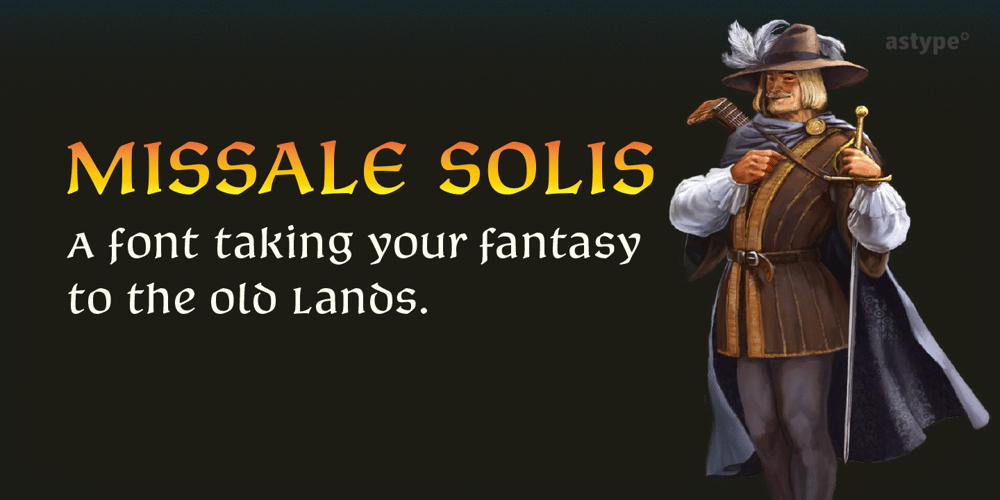
Missale Solis
Missale Solis font
Missale Solis Font Family was designed by Andreas Seidel and published by astype. Missale Solis contains 1 styles and family package options. Missale Solis is an overhaul of my previous font Missale Lunea from 2004. After some usecases and requestes for customized versions I decided to make a redesign that is better suited for screen. The font is useful for headlines and small amounts of text with a distinctive medieval impression. It includes Roman figures, dynamic fractions, zodiacs and an alternate design for T and ampersand (&).